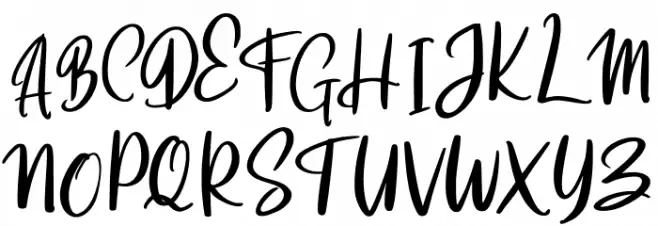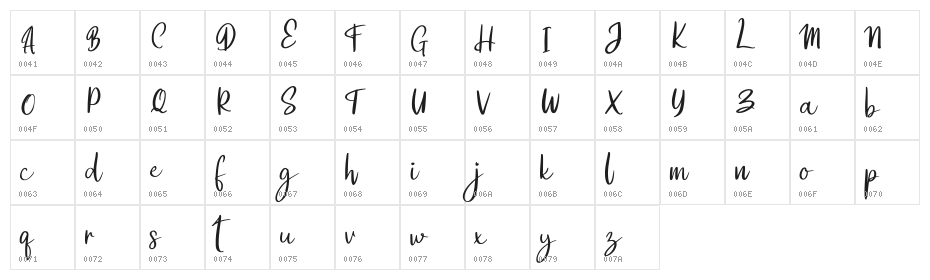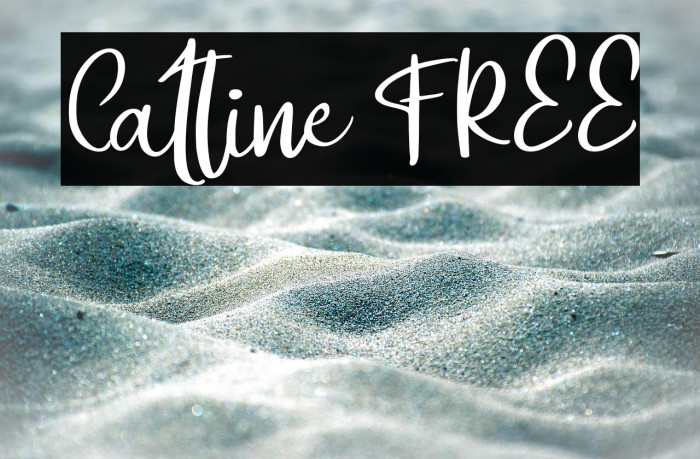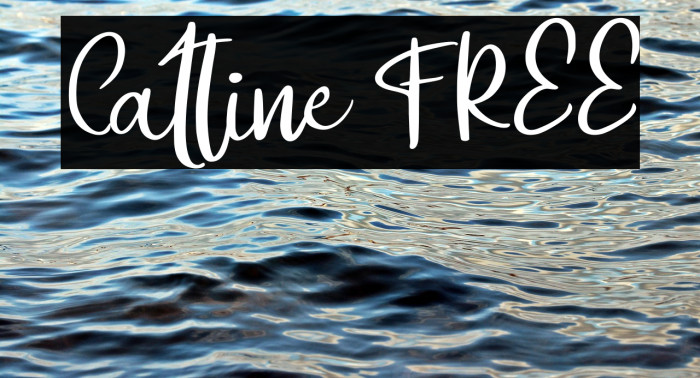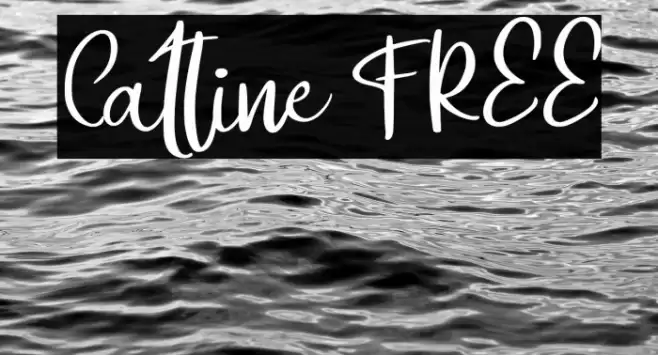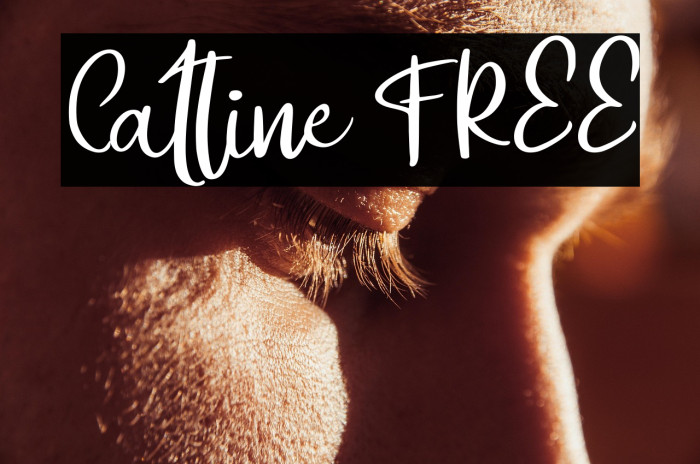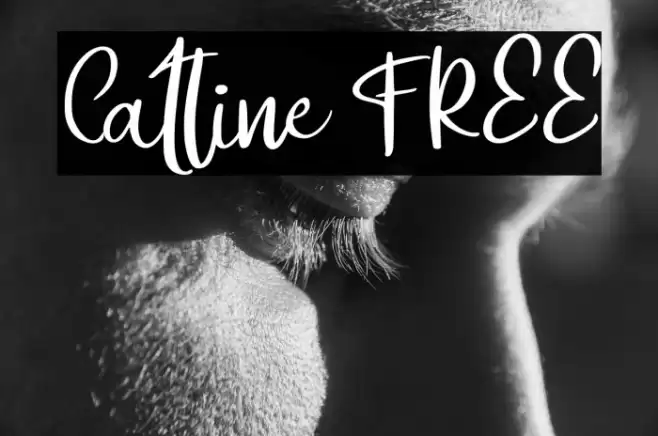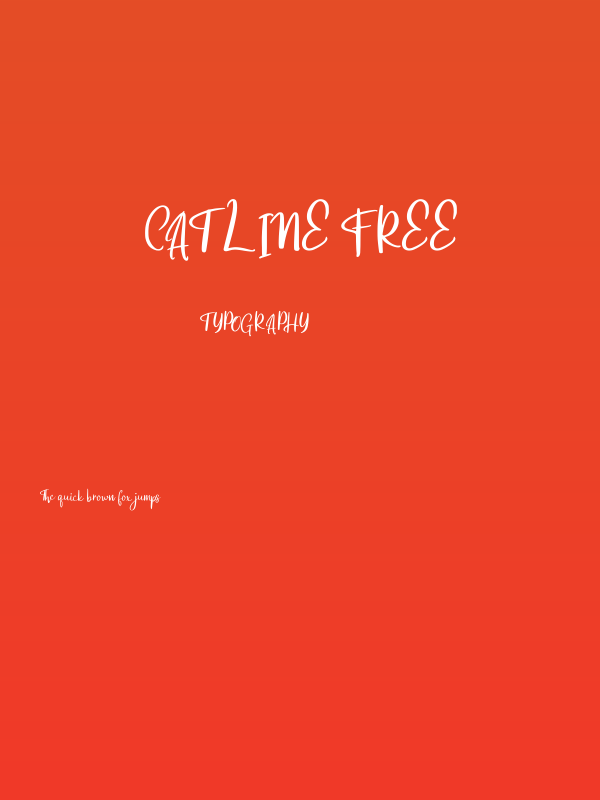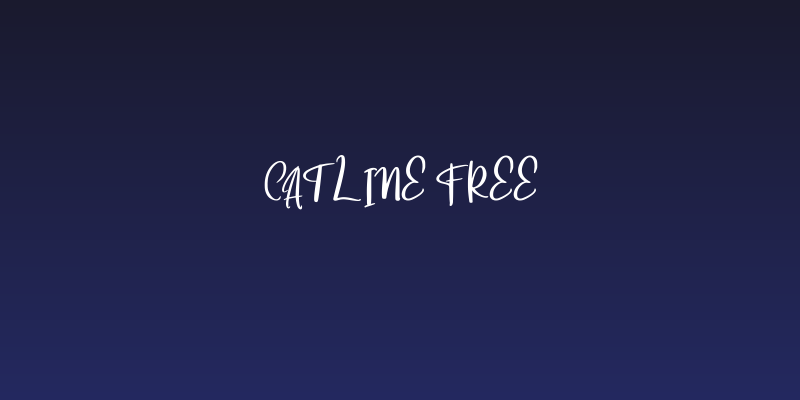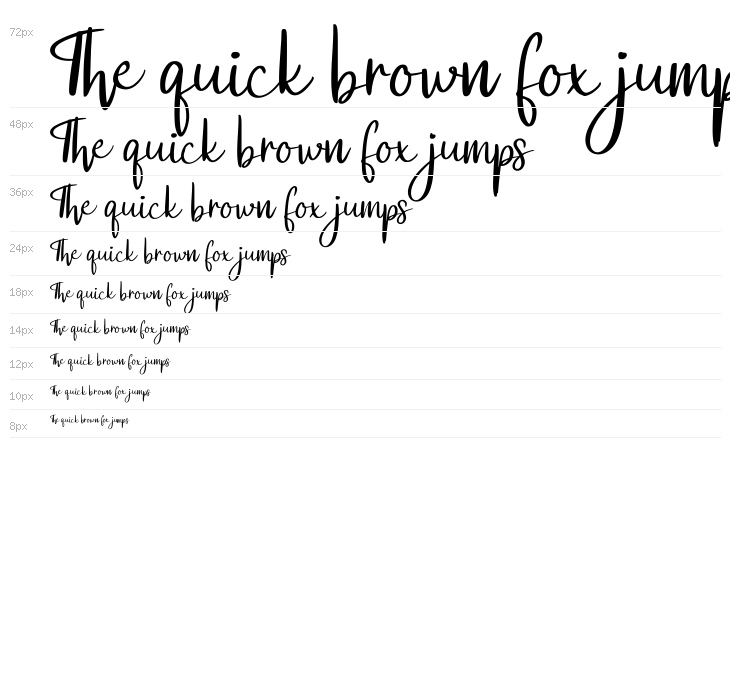
Catline FREE Font
Catline FREE Description
This font features a lively and expressive handwritten style, characterized by its fluid and dynamic strokes. The uppercase letters exhibit a playful yet elegant form, with varying stroke widths that add a sense of movement and energy. The lowercase letters maintain a consistent flow, complementing the uppercase with their smooth curves and loops. The numbers and special characters are crafted with the same attention to detail, ensuring a cohesive look throughout. This font's unique style makes it ideal for projects that require a personal touch or a creative flair.